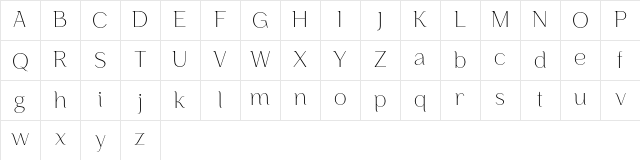
Maison De Artisan Regular Free Font
Maison De Artisan Regular
Foundry: Craft Supply Co.
Designer: Wahyu Hadi
Design Context for Maison De Artisan
Maison De Artisan is a composed and adaptable typeface that performs quietly and consistently across a wide range of design contexts.